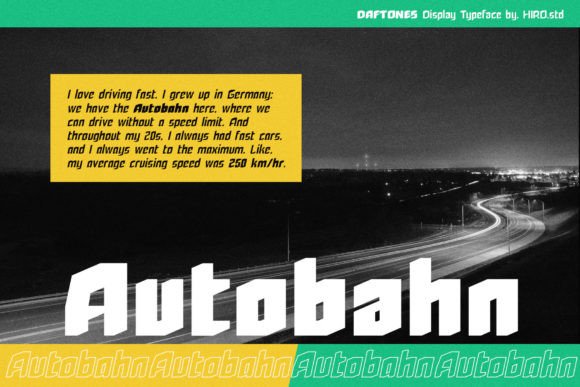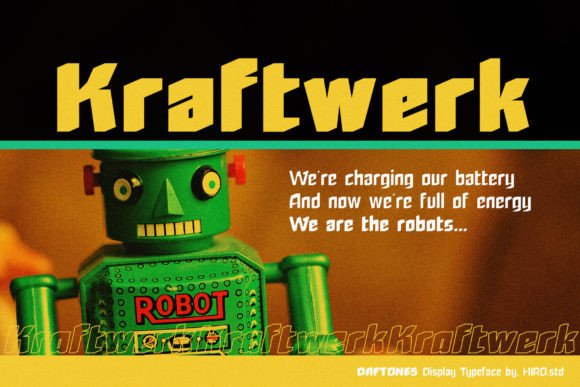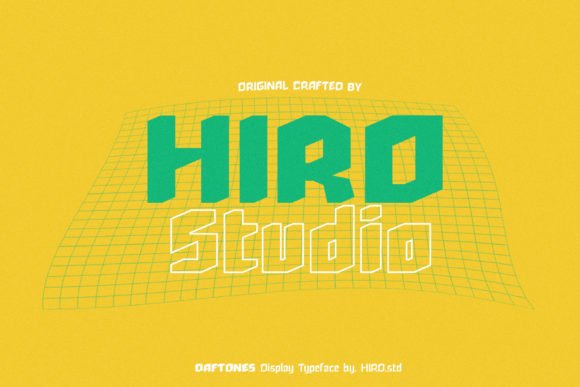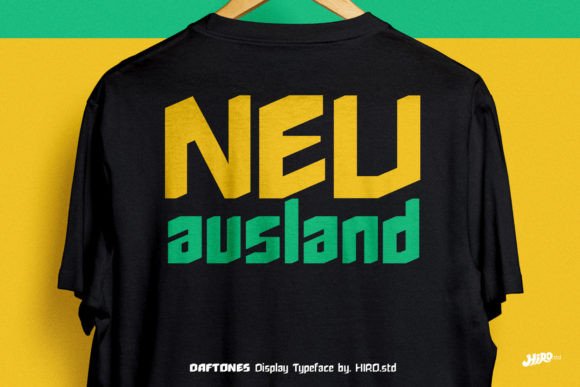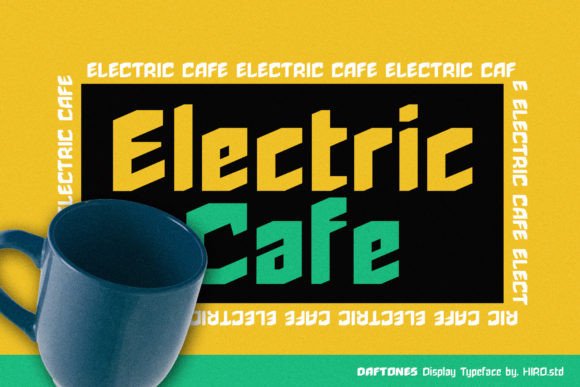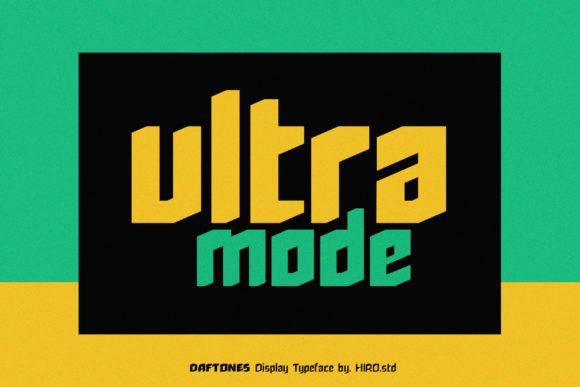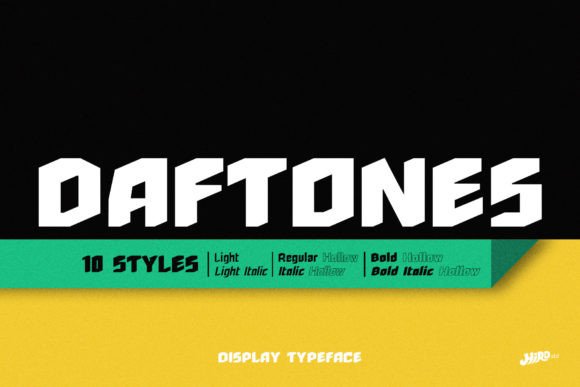
Daftones Font: A Stylish and Modern Display Typeface
In the world of typography, fonts play a crucial role in conveying the tone and personality of a brand or design. For designers and crafters, finding the perfect font can be a daunting task. However, if you’re looking for a stylish, modern, and bold display typeface, look no further than Daftones Font. In this article, we’ll explore the features and inspiration behind Daftones, and why it’s a great choice for your next design project.
What is Daftones Font?
Daftones is a display typeface that embodies a DIY spirit, strong, minimalist, and bold aesthetic. It’s perfect for designers and crafters who want to add a touch of modernity and sophistication to their work. The font’s clean lines, geometric shapes, and sleek curves make it a versatile choice for a wide range of design applications, from logos and branding to posters and packaging.
Inspiration Behind Daftones
Daftones was inspired by the iconic German band Kraftwerk, known for their influential electronic music and futuristic style. The font’s design pays homage to the band’s legacy and the distinctive German style that characterized their music and visuals. The result is a font that’s both nostalgic and forward-thinking, perfect for designers who want to evoke a sense of retro-futurism in their work.
Key Features of Daftones Font
So, what makes Daftones Font so special? Here are some of its key features:
- Stylish and Modern: Daftones boasts a sleek and contemporary design that’s perfect for designers who want to create modern and trendy visuals.
- DIY Spirit: The font’s bold and adventurous aesthetic makes it ideal for crafters and makers who want to add a touch of personality to their work.
- Strong and Bold: Daftones is a statement font that’s designed to grab attention. Its bold lines and geometric shapes make it perfect for headlines, titles, and other display text.
- Minimalist: Despite its bold aesthetic, Daftones is a surprisingly minimalist font. Its clean lines and simple shapes make it easy to read and versatile to use.
Uses of Daftones Font
Daftones Font is a versatile typeface that can be used in a wide range of design applications, including:
- Branding and Logos: Daftones is perfect for creating bold and memorable logos that make a statement.
- Posters and Flyers: The font’s bold aesthetic makes it ideal for creating eye-catching posters and flyers that grab attention.
- Packaging Design: Daftones can add a touch of modernity and sophistication to product packaging, making it perfect for food, fashion, and lifestyle brands.
- Web Design: The font’s clean lines and simple shapes make it easy to read on screen, making it a great choice for web designers.
Tips for Using Daftones Font
Here are some tips for getting the most out of Daftones Font:
- Use it boldly: Daftones is a bold font, so don’t be afraid to use it in large sizes to make a statement.
- Experiment with colors: The font’s geometric shapes and clean lines make it easy to pair with a wide range of colors and textures.
- Pair it with other fonts: Daftones can be paired with other fonts to create a unique and interesting visual effect.
In conclusion, Daftones Font is a stylish, modern, and bold display typeface that’s perfect for designers and crafters who want to add a touch of sophistication and personality to their work. Inspired by the iconic German band Kraftwerk and German style, Daftones is a versatile font that can be used in a wide range of design applications. With its clean lines, geometric shapes, and sleek curves, Daftones is a great choice for anyone looking to create modern and trendy visuals.